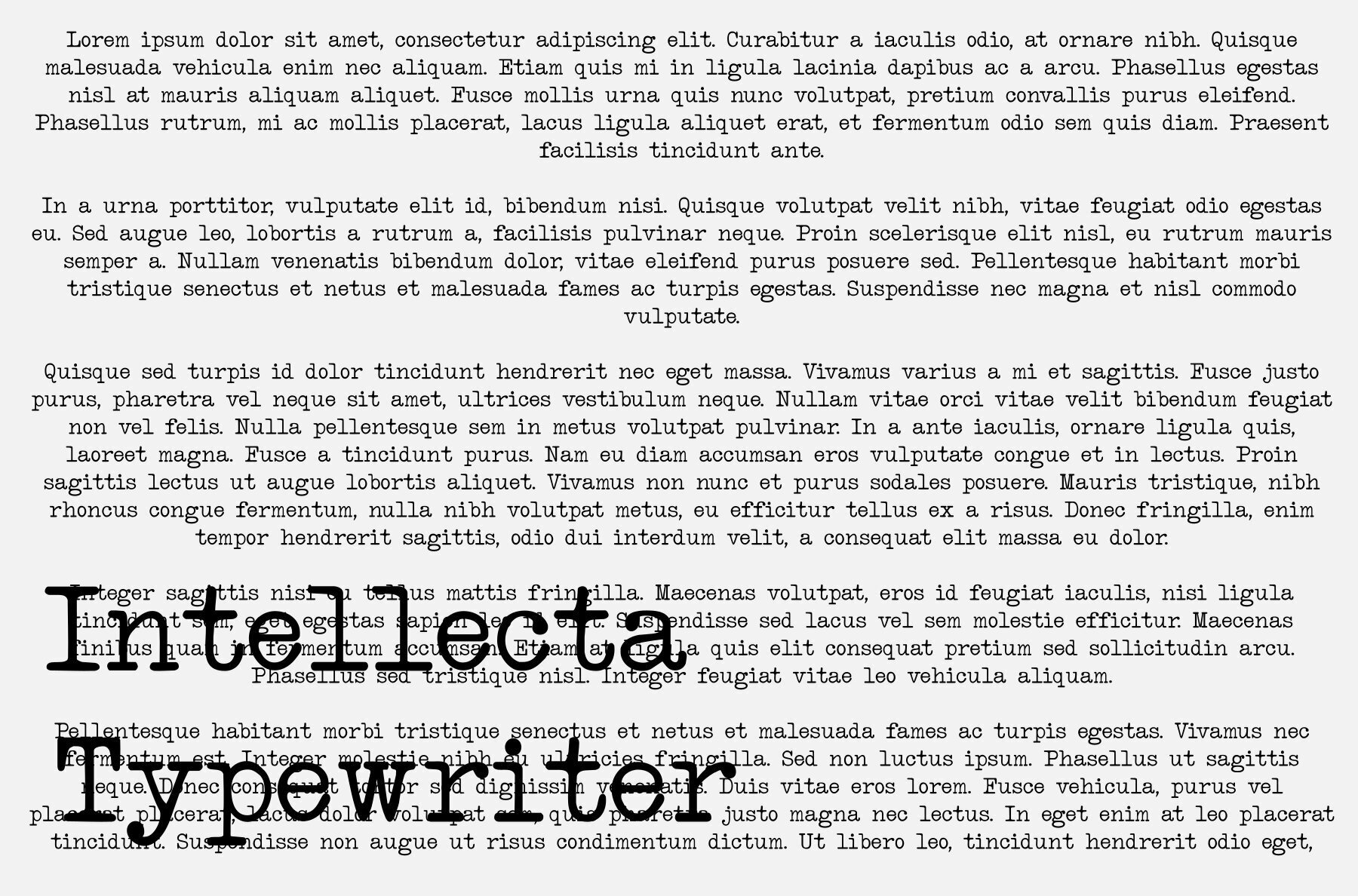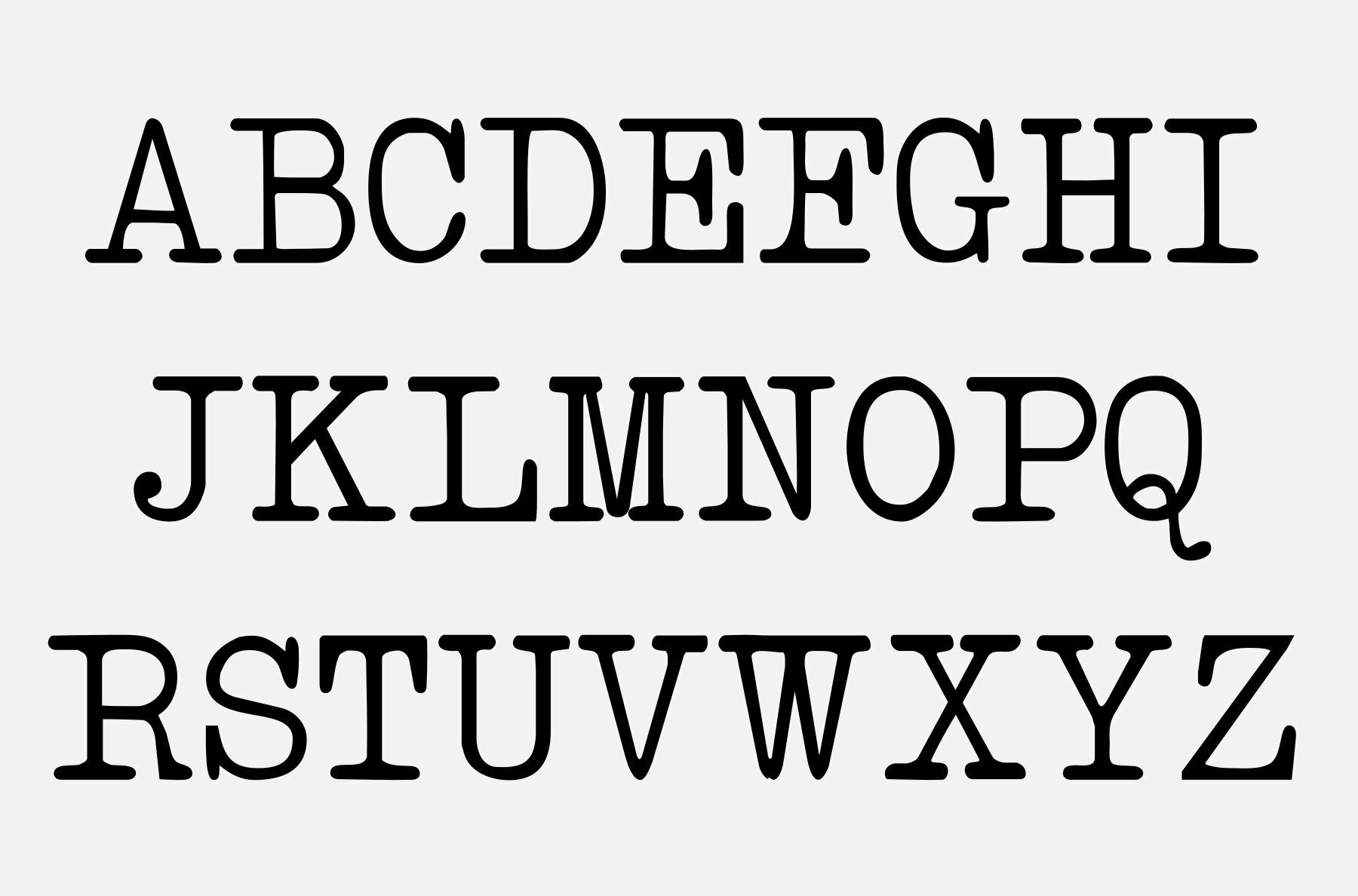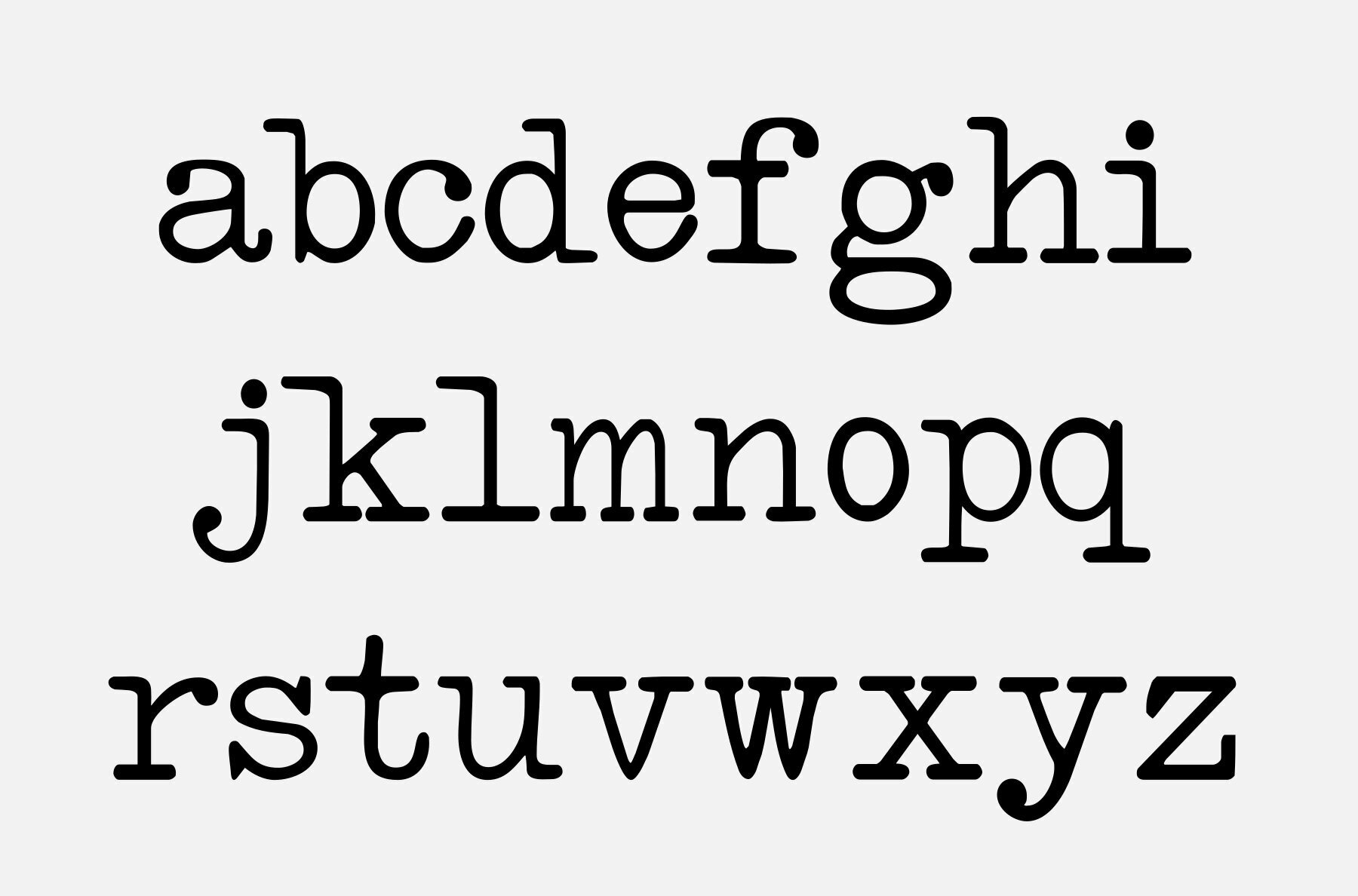
Intellecta Typewriter Font
The Intellecta Typewriter font by Intellecta Design brings the nostalgic touch of vintage typewriters to your design projects. Combining classic serif elements with the authentic feel of typewriter text, this font is ideal for those seeking a retro aesthetic.Intellecta Typewriter: Vintage Serif with Typewriter Charm
Key Characteristics
Intellecta Design is a Brazilian typefoundry interested in typographical research and revivals of all forms of ancient typefaces and handwriting styles. It searches historical churches, museums and similar institutions to develop handwriting and other fonts from old documents. This kind of research is not comm...